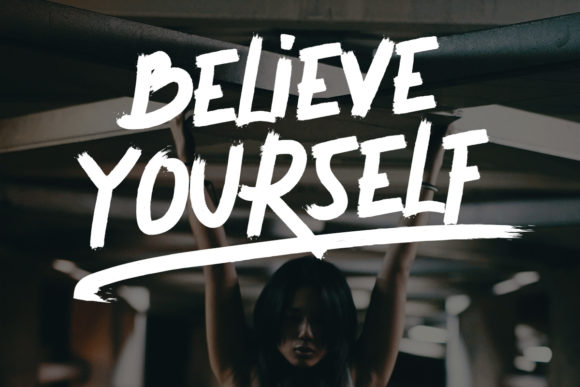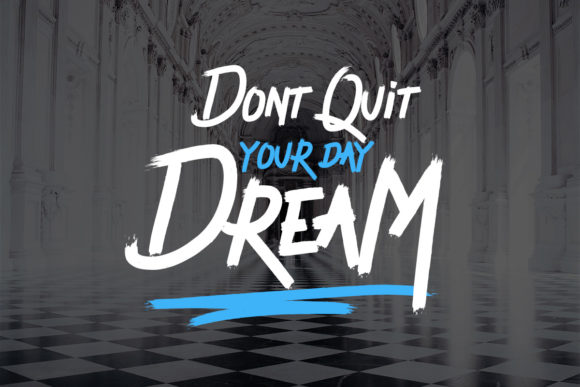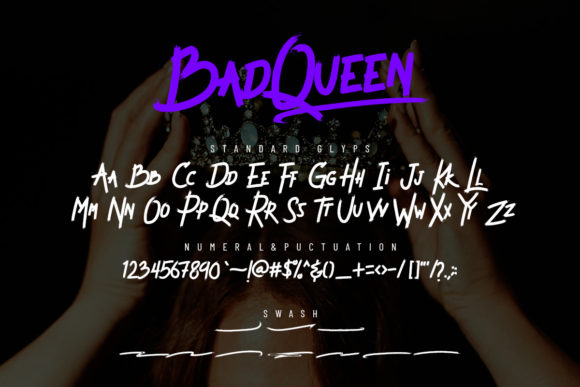
The Moment That Sets Your Design Apart
You know that moment when you’re brainstorming ideas for a project and everything just clicks? The words flow, the design comes together, and you can envision the final product in your mind’s eye. It’s exhilarating, and it’s exactly what happens when you bring the right tools to the table.
That’s where the Bad Queen Font comes in – a bold and beautiful display font that’s sure to elevate any design project. Whether you’re working on a branding campaign, a poster, or a digital ad, this font is the perfect way to add a touch of drama and sophistication. And the best part? It’s ridiculously easy to use, making it a valuable asset for designers of all levels.
Bad Queen Font Key Features
- Font Family: Bad Queen Font is a unique, hand-drawn sans-serif font designed to evoke a sense of elegance and sophistication.
- Character Set: The font includes a comprehensive set of characters, including uppercase and lowercase letters, numbers, punctuation marks, and special characters.
- Unique Characteristics: The Bad Queen Font features a distinctive, hand-drawn style with subtle imperfections and variations in letterforms, giving it a unique and personal touch.
Designer Review: Bad Queen Font
Overall, I was impressed with the unique style and flair of the Bad Queen Font. ✨ The bold and edgy design is perfect for creating a statement, especially in contexts that require a touch of rebelliousness or sass. The font’s eclectic mix of styles and letterforms adds an air of sophistication and artistry, making it stand out from more generic fonts.
One of the key strengths of the Bad Queen Font is its versatility. ✨ It can be used for a wide range of applications, from fashion and beauty branding to music and entertainment. The font’s adaptability makes it an excellent choice for designers looking to create a bold and eye-catching visual identity.
While the Bad Queen Font has many strengths, there are a few limitations to consider: ⚠️
- Legibility: In certain contexts, the font’s bold lines and irregular letterforms may make it difficult to read, especially at smaller sizes.
- Consistency: The font’s eclectic style may make it challenging to maintain a consistent visual identity across different applications.
Despite these limitations, I believe the Bad Queen Font is a unique and valuable addition to any designer’s toolkit. With careful consideration of its strengths and weaknesses, it can be a powerful tool for creating bold and memorable designs.
Tips for Getting the Most Out of the Bad Queen Font
Use the Bad Queen Font to add a touch of elegance and sophistication to your designs. Pair it with bold colors and contrasting fonts to create a striking visual effect.
Experiment with different font sizes and styles to create a unique and eye-catching look.
The Bad Queen Font is perfect for:
Blog posts and social media graphics
Q: What is the recommended font size for optimal readability with Bad Queen Font?
The recommended font size for optimal readability with Bad Queen Font is between 12pt and 18pt. However, this may vary depending on the specific use case and intended audience. Experiment with different font sizes to find the most suitable one for your project.
Q: Does Bad Queen Font support Unicode characters?
Yes, Bad Queen Font supports a wide range of Unicode characters, including Latin, Cyrillic, and Greek alphabets. This makes it suitable for use in multilingual projects and applications.